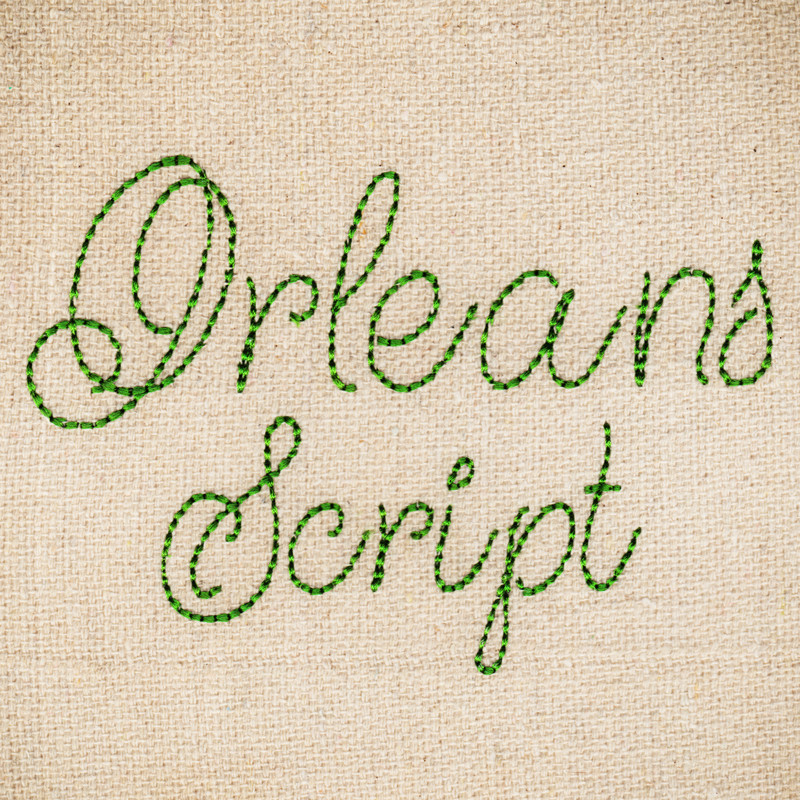
793 Orleans Script Floss Font
793 Orleans Script Floss Font comes in 1", 1.5", 2", 2.5", 3", 3.5", 4", 4.5", 5", 5.5" and 6" heights based on the capital "A". All sizes include uppercase letters, lowercase letters, numbers and 13 punctuation marks. All sizes are finished in Floss Stitch.
● Note: The Lowercase "f" has parts that extend below the base line and above the top line and is 121.5% taller than it's matching capital letters from the same set size. For Example In the 2 Inch Set the capital letters are 2" in height and the "f" is 2.43" in height.
● Note: Some capital letters are wider than they are tall.